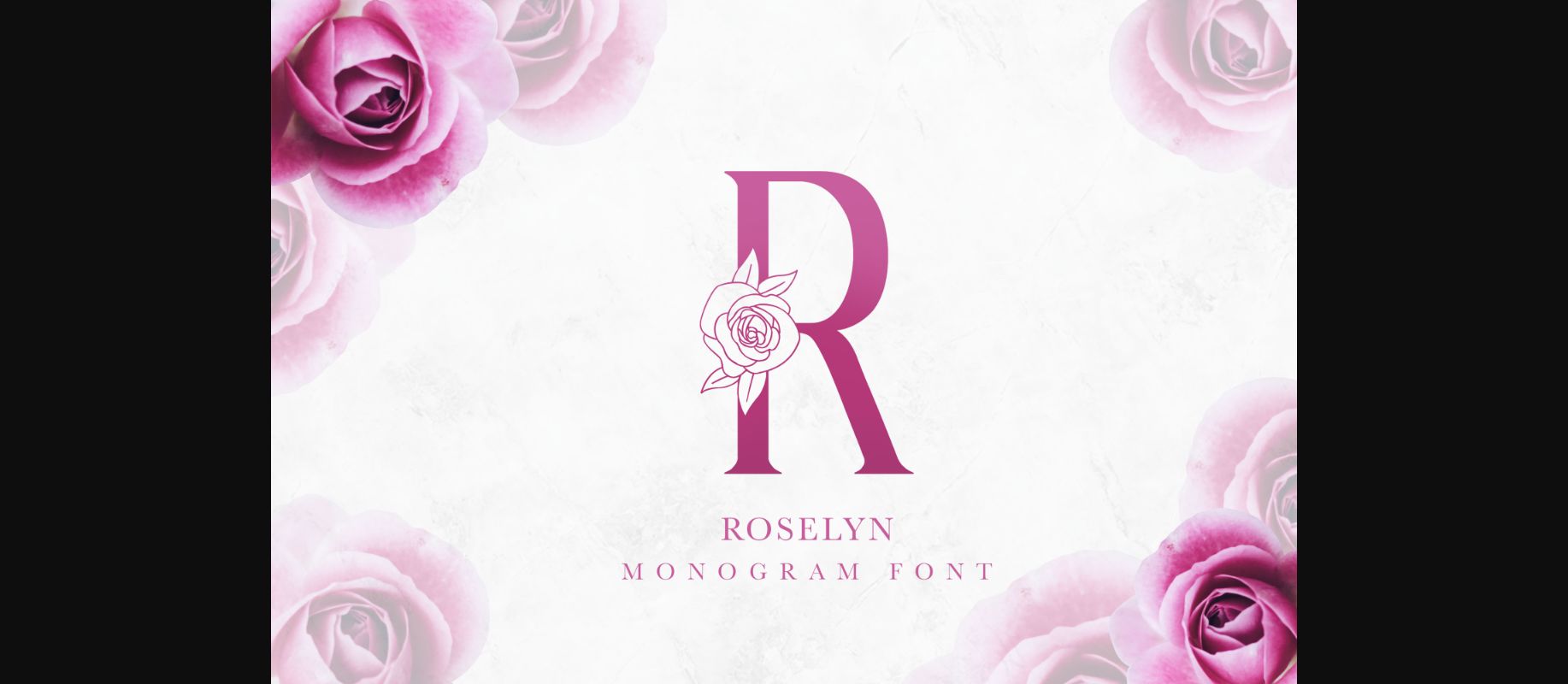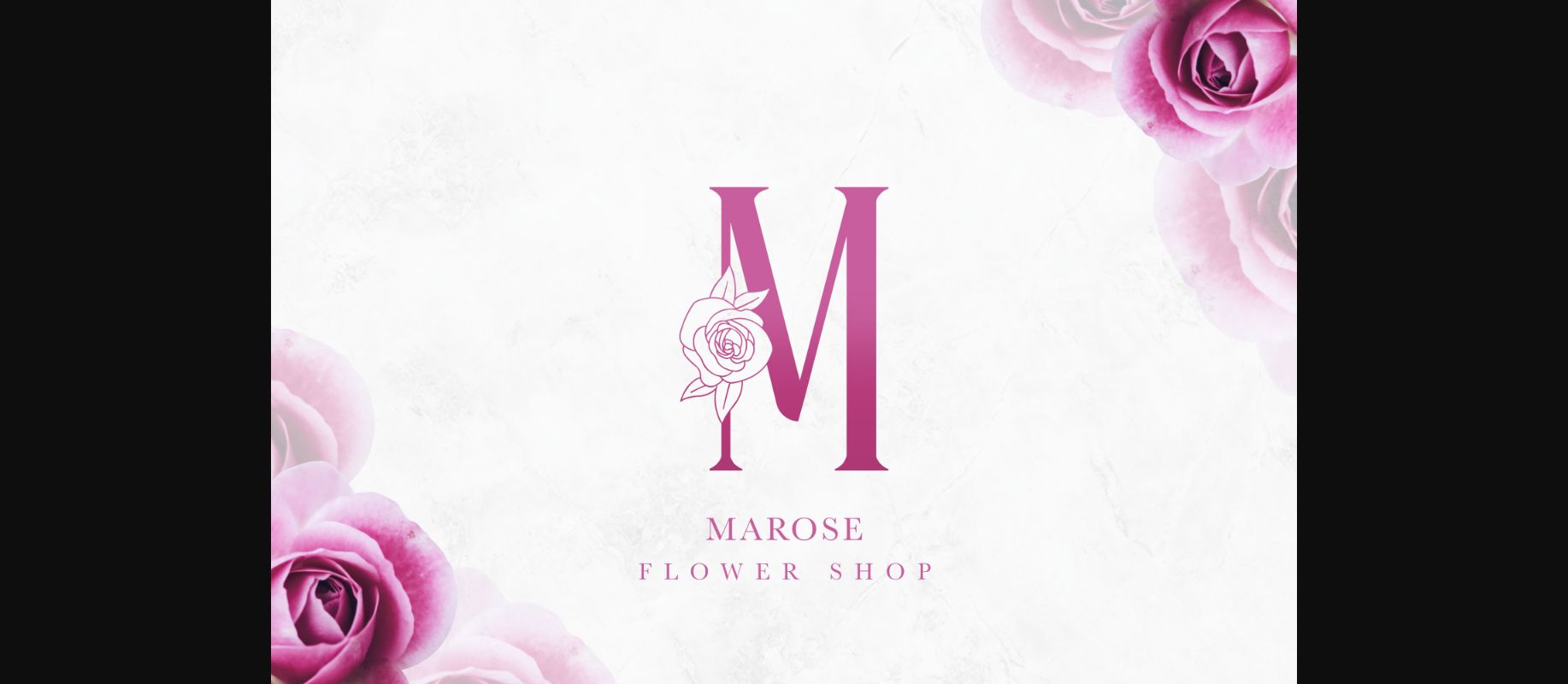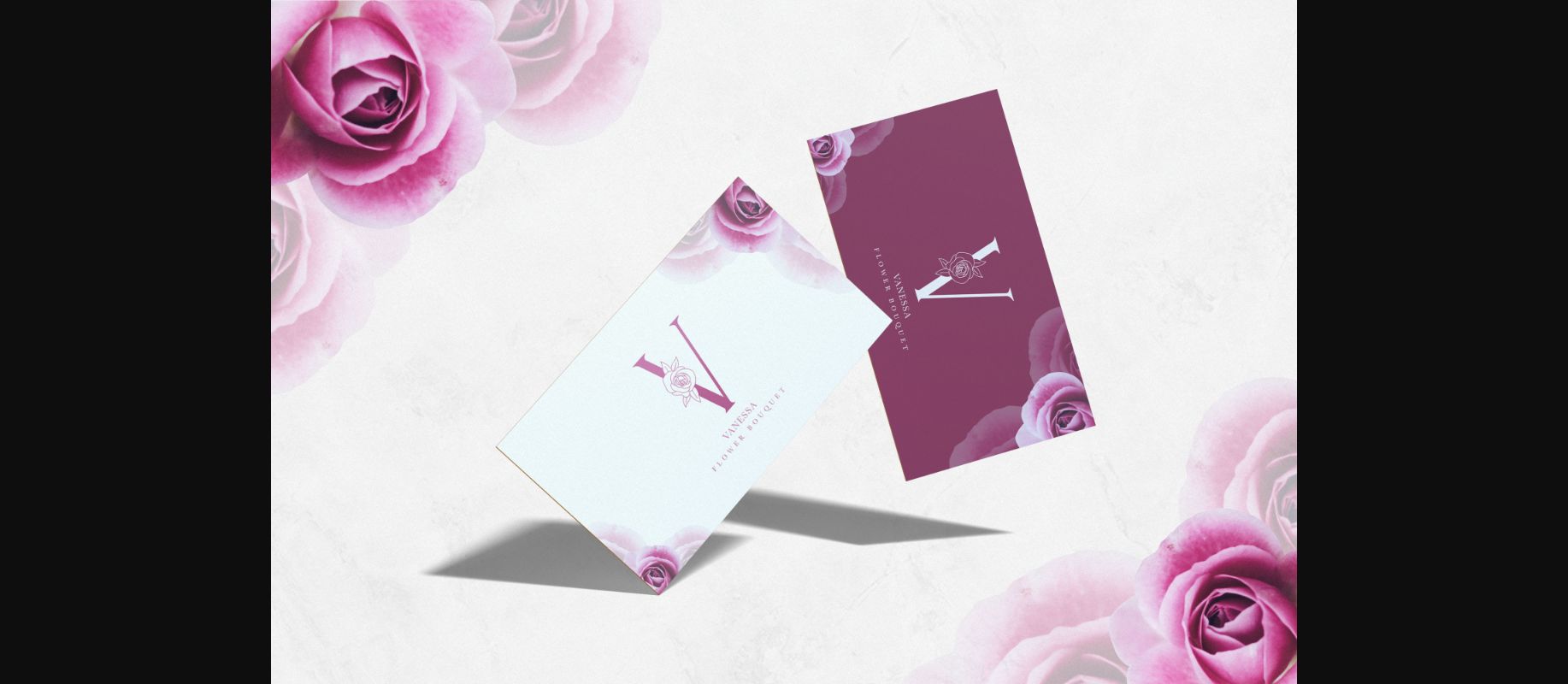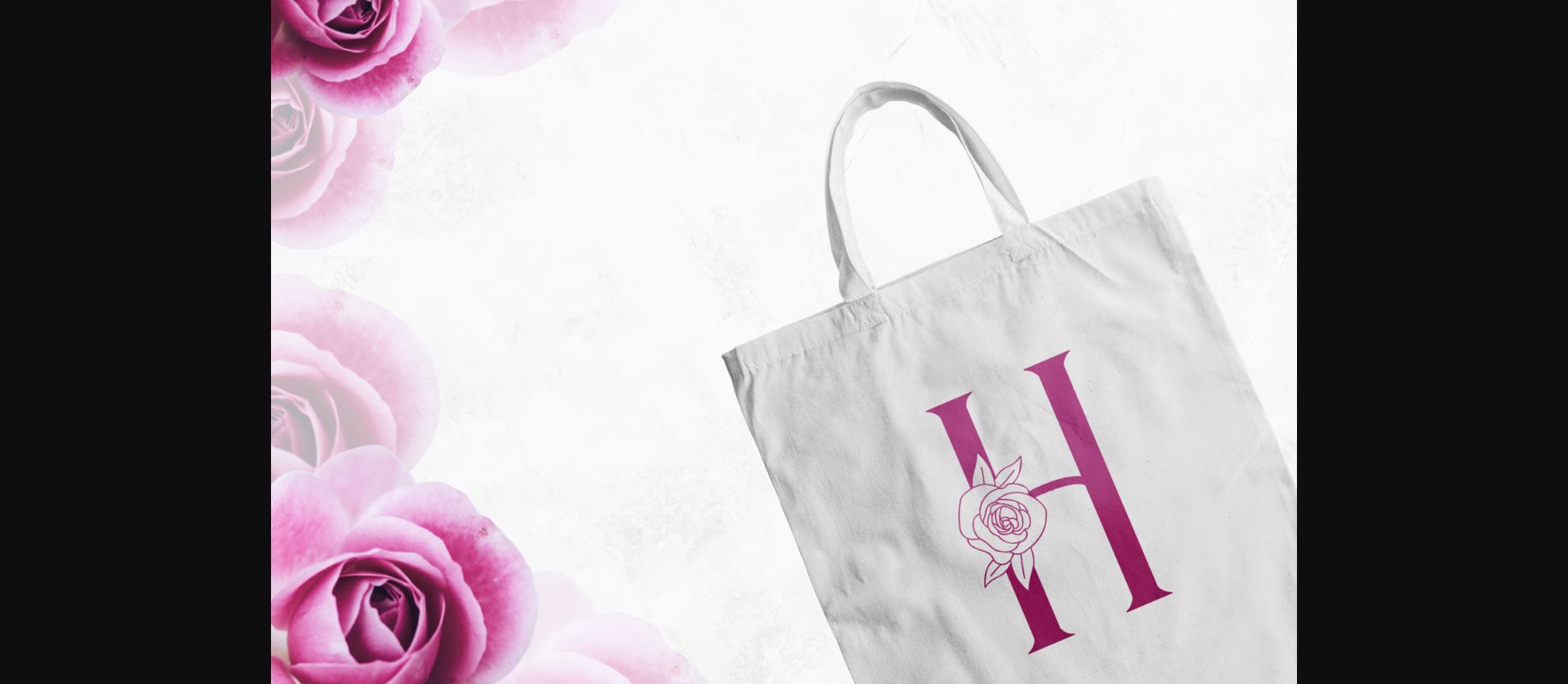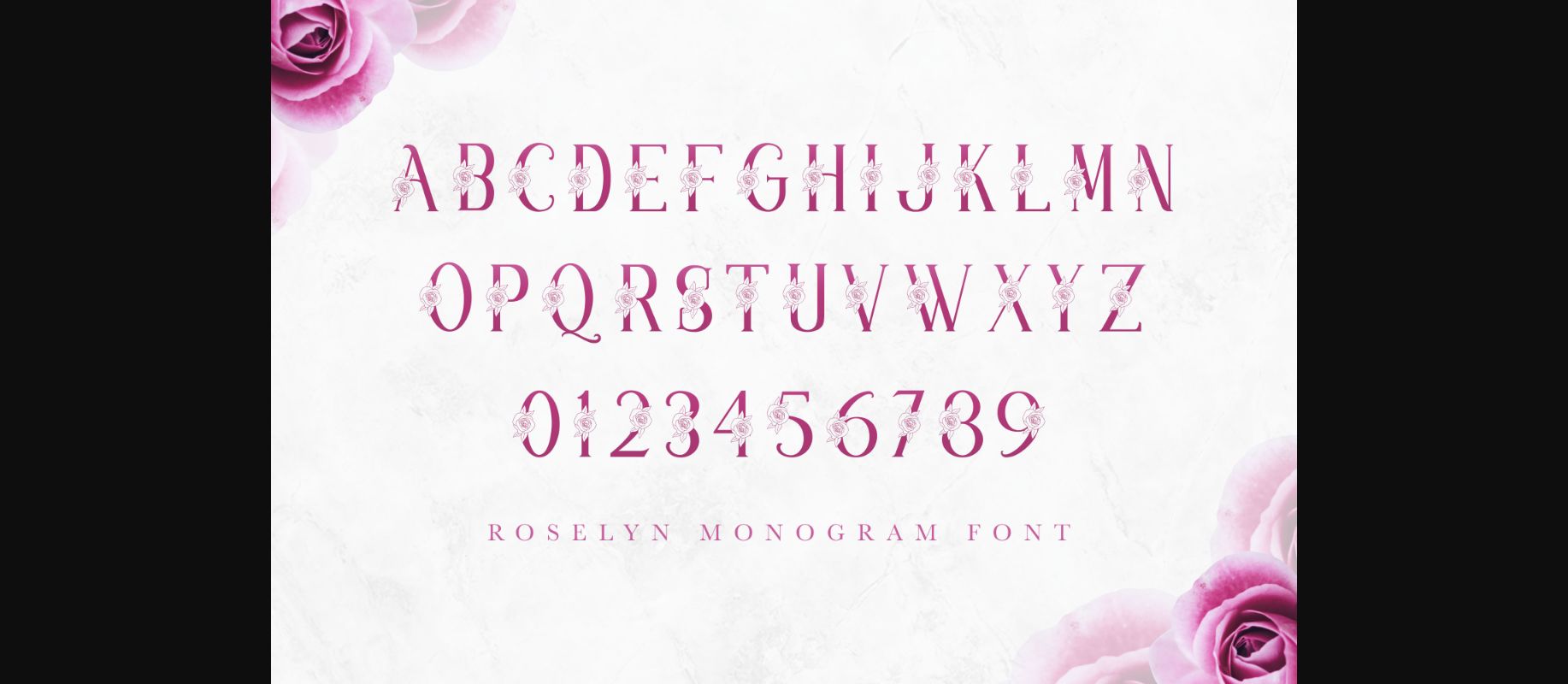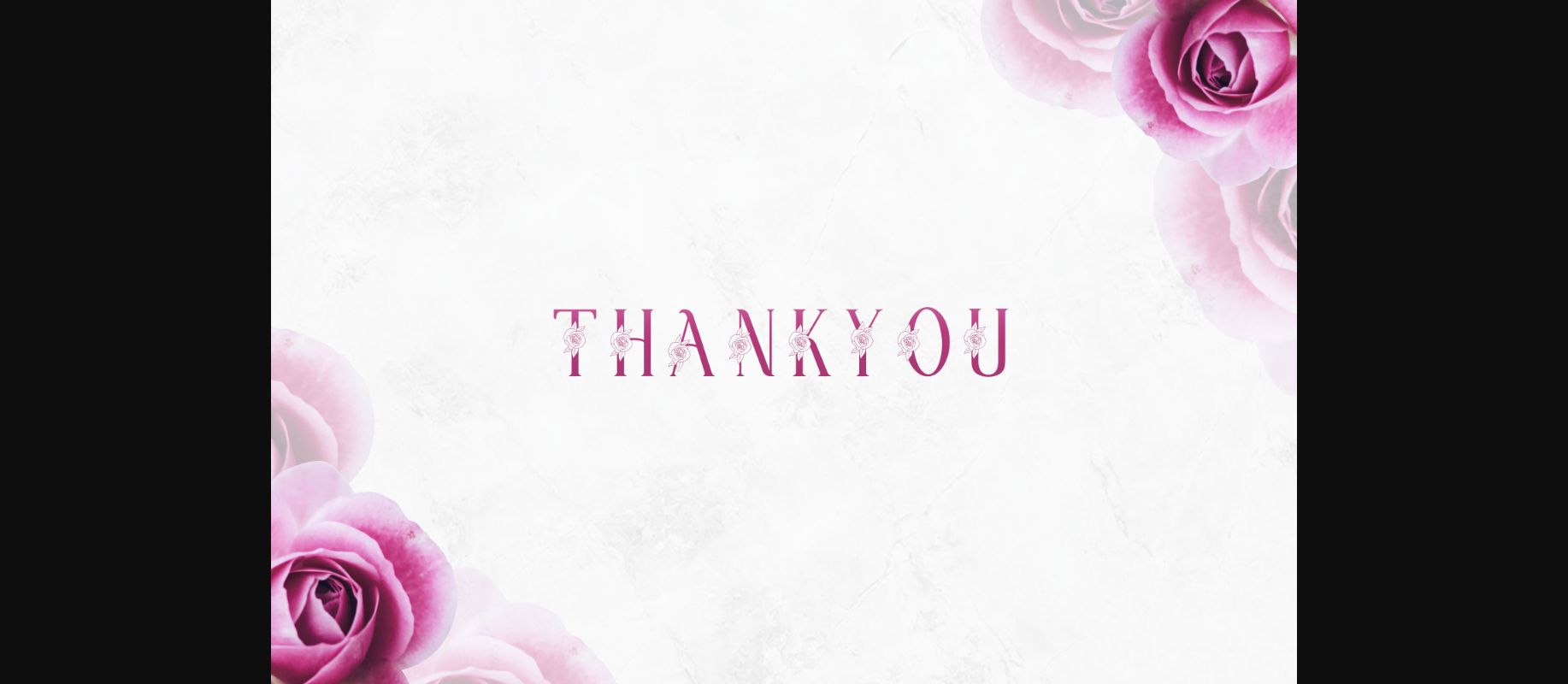
Roselyn Font
About Roselyn Font
Roselyn is a dainty and delicate decorative font, featuring flowers on each character. Add this romantic and lovely looking font to each of your love letters, wedding invitations or favorite design ideas, and you will be astounded by the outcome.